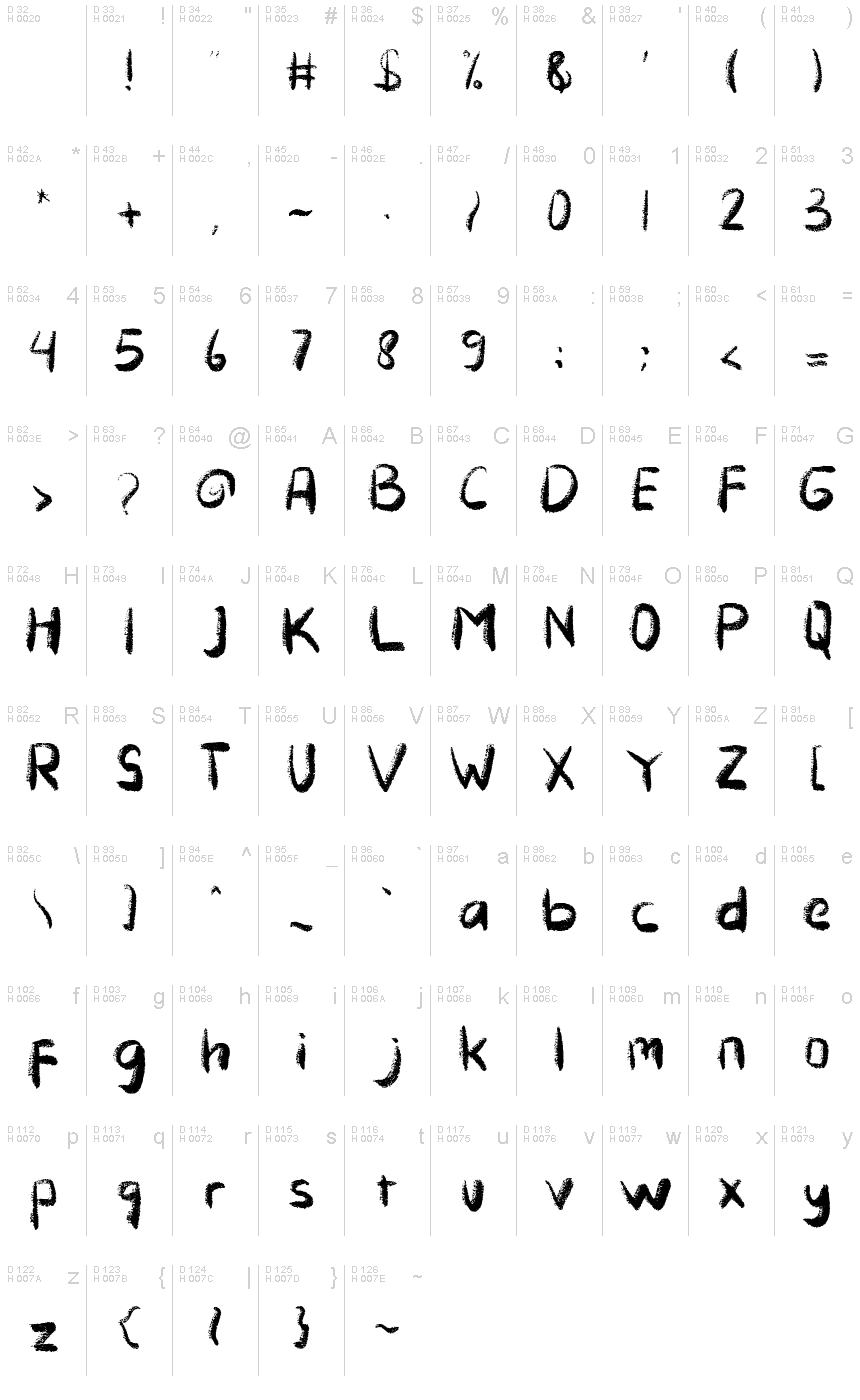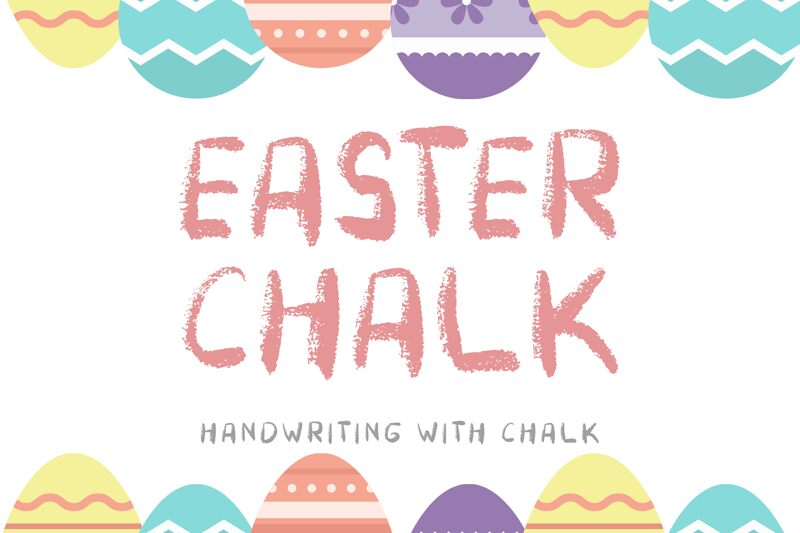
EASTER CHALK
Easter Chalk is a bold, impactful font that evokes the raw, energetic aesthetic of chalk lettering. Designed by Yoga Letter, this typeface exudes a sense of handcrafted charm and artisanal character.
With its thick, expressive strokes and slightly uneven edges, Easter Chalk captures the essence of a chalk-drawn inscription, adding a rustic, artisanal touch to any design. This font is particularly well-suited for headlines, titling, and branding applications where a striking, attention-grabbing effect is desired. Its confident, vibrant presence makes it an excellent choice for posters, flyers, and other promotional materials, effortlessly conveying a sense of playfulness and spontaneity.
Whether used for event announcements, product packaging, or creative typography, Easter Chalk's distinctive style is sure to leave a lasting impression.